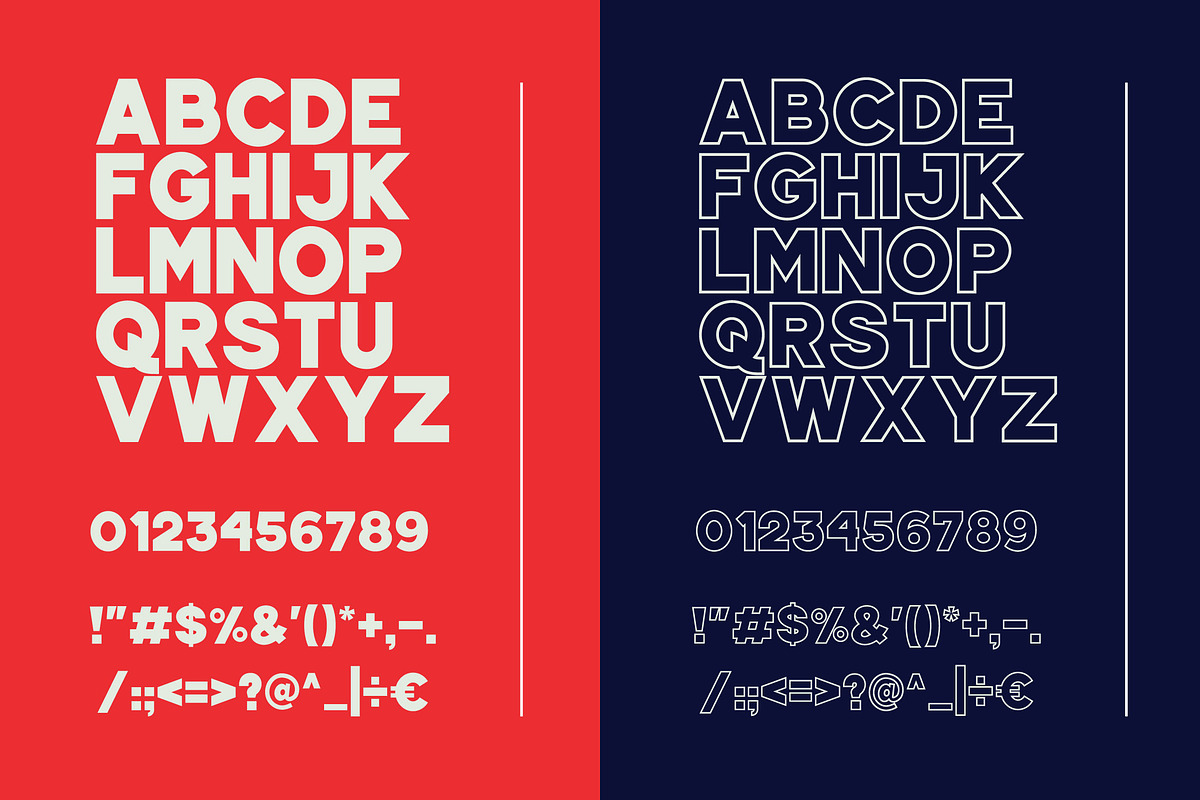
Junar - Wide Sans Serif
Junar is a powerful, sophisticated sans serif. Its uncompromising solid style is felt through controlled letter shapes and modern touches.
Designed for maximum visual and emotional impact for social media, magazines, headlines, titles, large format prints, and wherever else you want to be noticed.